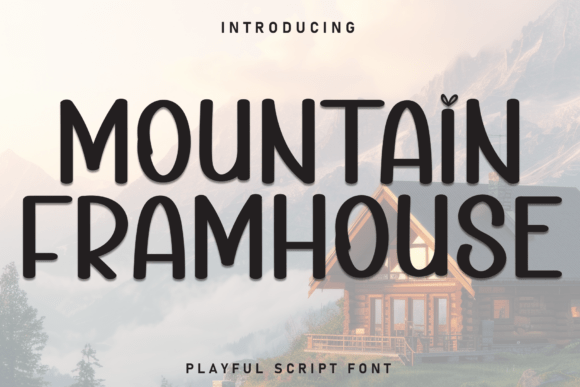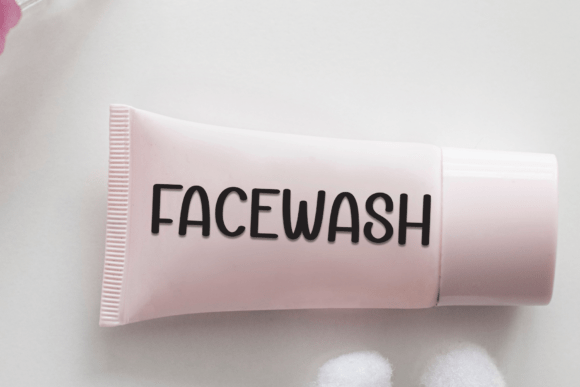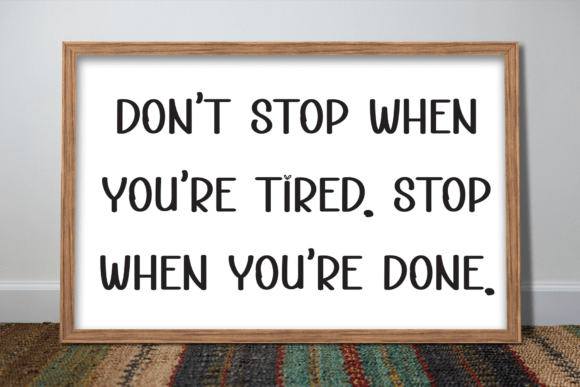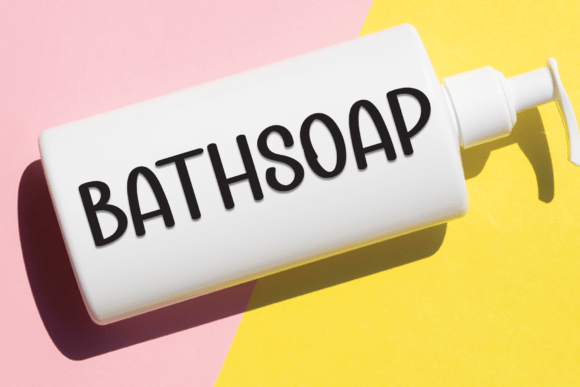
Mountain Framhouse Font
About the Mountain Framhouse Font
Explore the possibilities with Mountain Framhouse Font, a font that offers both beauty and functionality. This handwritten display font brings a touch of personality and charm to your creative projects. With its casual strokes and organic flow, it captures the feel of natural handwriting—making it ideal for quotes, posters, branding, and social media graphics. Its playful yet legible style adds warmth and authenticity, turning every word into a visual conversation.
Mountain Farmhouse Font excels in headline applications, short-form text, and branding elements where a friendly, approachable aesthetic is desired. It works particularly well for projects related to food, crafts, or rustic-themed businesses. Avoid using it for large blocks of body text or UI elements; its casual nature compromises readability in such contexts.
Consider pairing Mountain Farmhouse with a clean sans-serif like Lato for a balanced contrast, or a more refined serif such as Playfair Display for a touch of elegance. A simple, geometric sans-serif would also provide a modern counterpoint. The font’s overall personality is best described as warm, casual, and inviting.
Mountain Framhouse Font Usage Examples
Mountain Framhouse Font Example